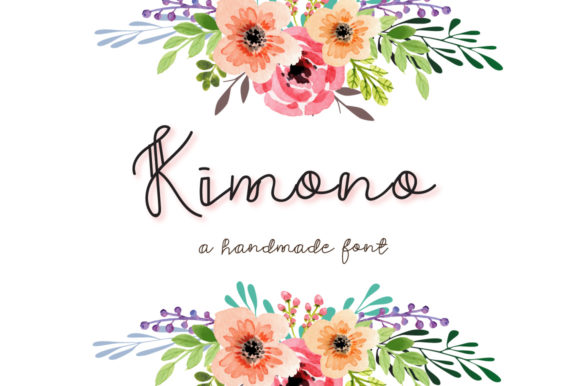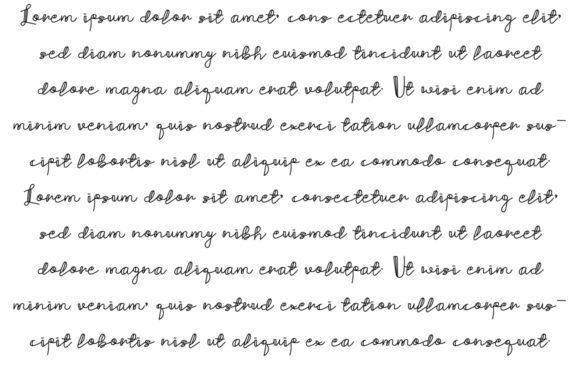
Kimono Font
About Kimono Font
Kimono is an amazing handwritten font with a playful and delicate charm. It will inspire any new creative projects with its light feel.